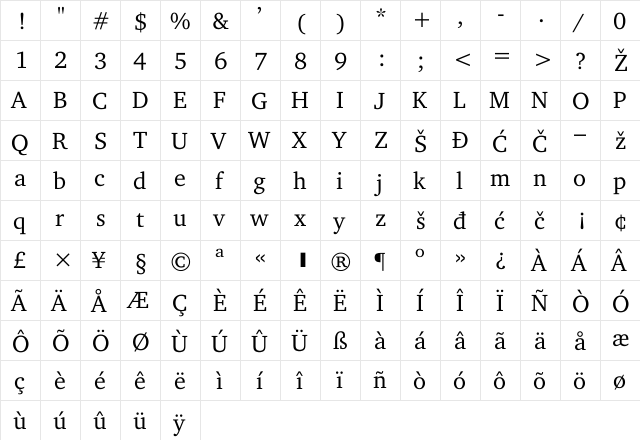
Chart Regular
Design Context for Chart Typeface
Chart is a composed and adaptable typeface that performs quietly and consistently across a wide range of design contexts.